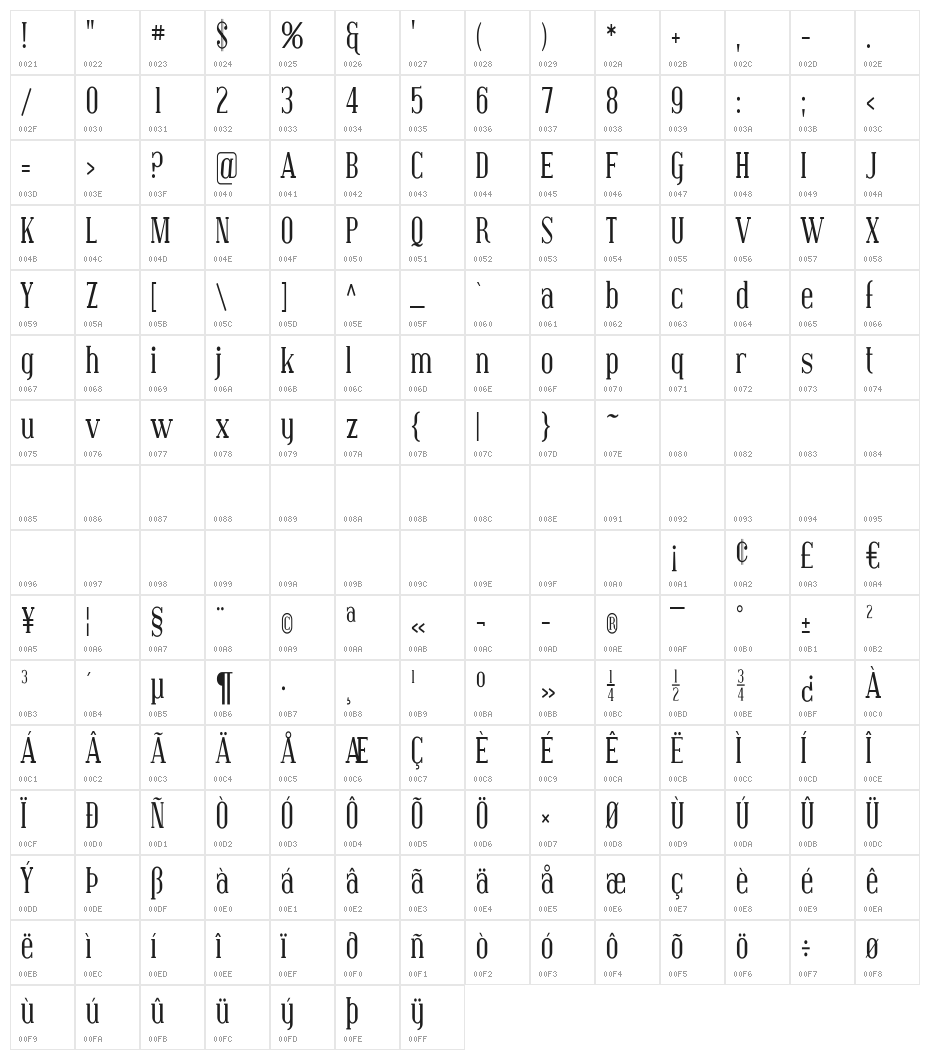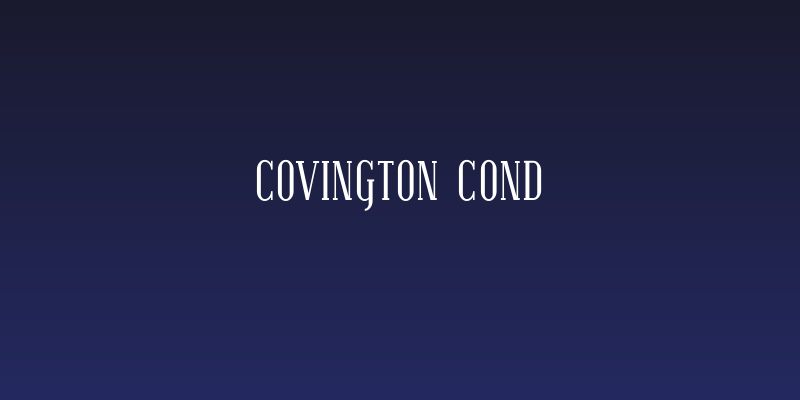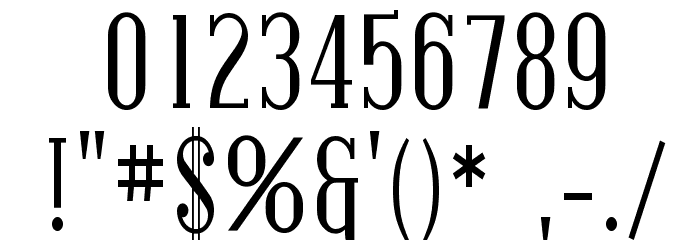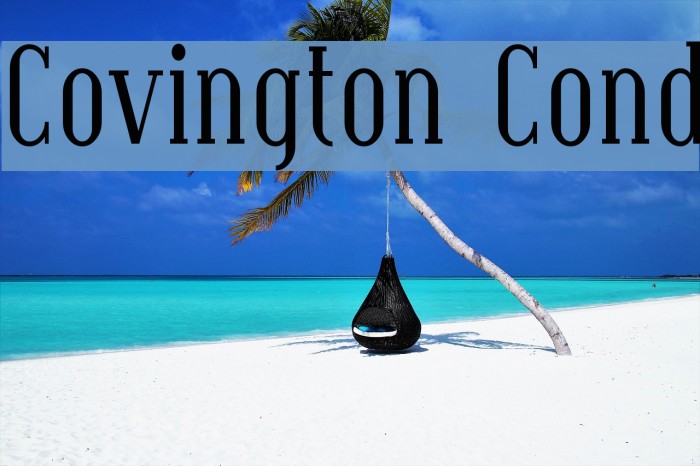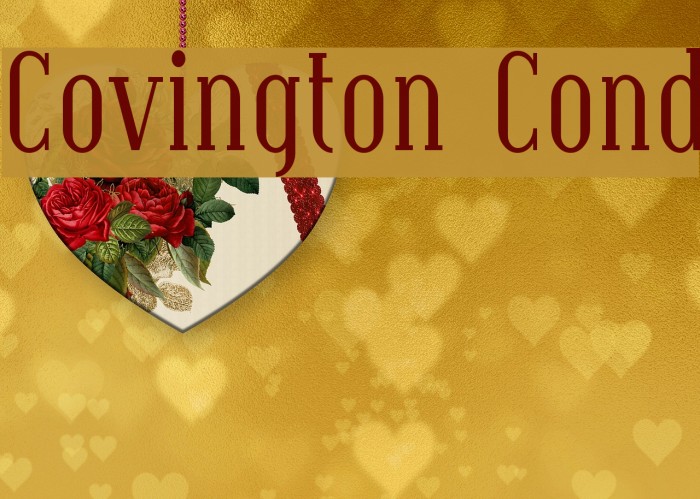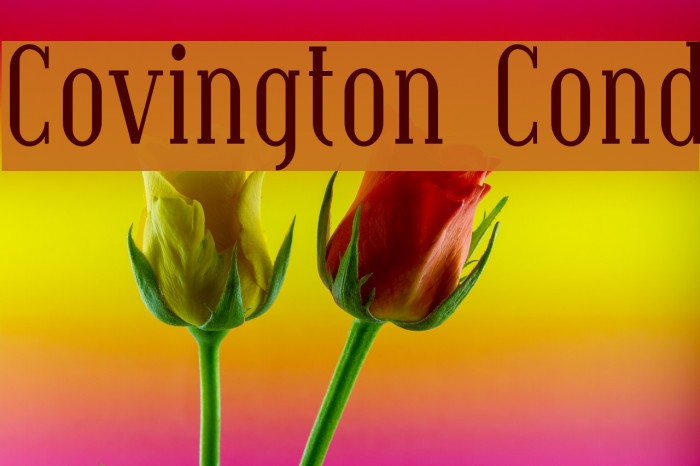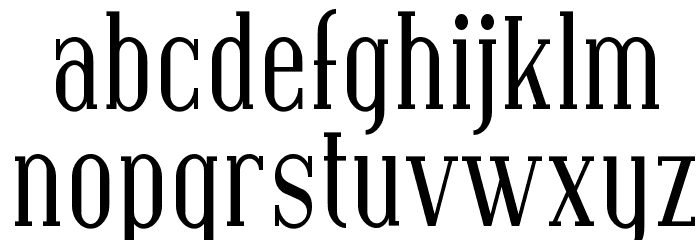
Covington Cond Font
Covington Cond Description
This font features a classic serif style with a condensed width, giving it a sophisticated and elegant appearance. The uppercase letters are tall and narrow, while the lowercase letters maintain a consistent height, enhancing readability. The numerals are proportionate and align well with the overall design. Special characters are distinct and maintain the font's refined aesthetic. The strokes are consistent with medium contrast, providing a balanced look that is both modern and timeless.
| Width | Condensed |
| Overall Style | Classic |
| Use Case | Headlines, Editorial design, Branding |
| Proposed Projects | This font is perfect for editorial design, book covers, formal invitations, and branding materials that require a touch of elegance and sophistication. |